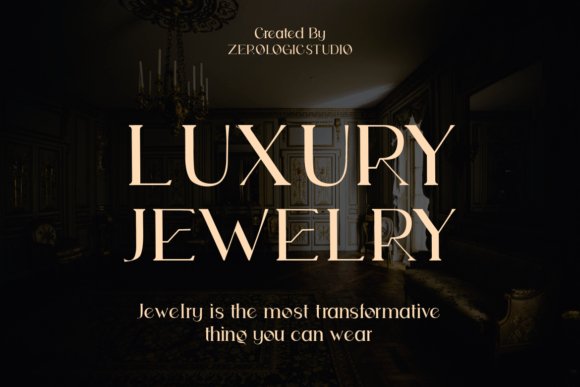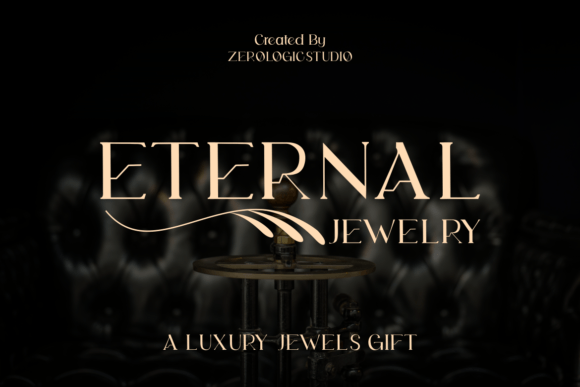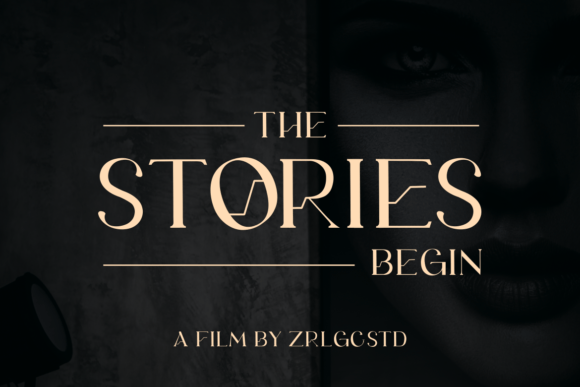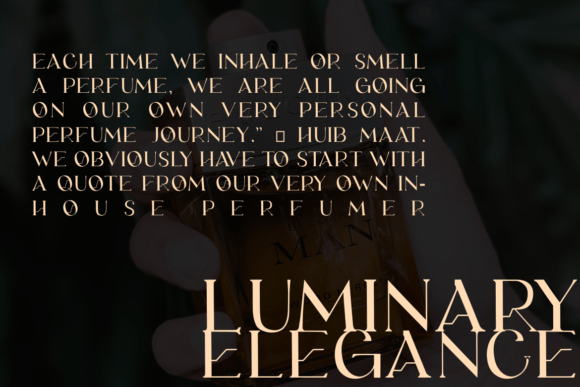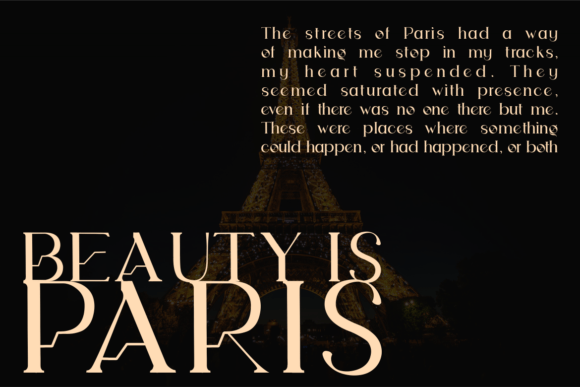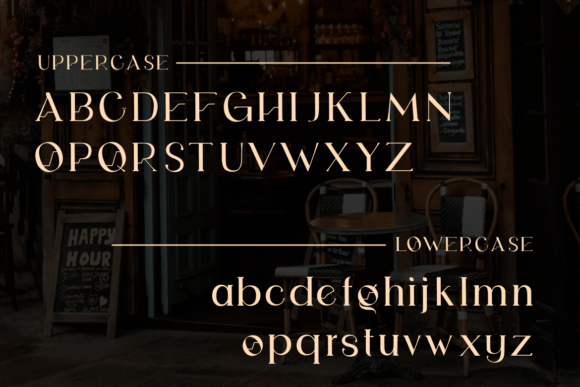
Introduction to Garwoone Font
As designers, we’ve all been there – staring at a blank canvas, trying to bring our creative vision to life. The perfect font can make all the difference, elevating our designs from mere good to truly exceptional. That’s why we’re excited to introduce you to the Garwoone Font, a modern and luxury serif font designed with originality and style.
With its strong and sharp lines, the Garwoone Font is perfect for titles, typography, posters, magazines, and websites. Its versatility makes it an invaluable resource for designers looking to add a touch of sophistication to their creative projects. Whether you’re working on a high-quality brochure or a digital design, the Garwoone Font is sure to impress.
Key Features of Garwoone Font
- Features a unique, modern design with a clean and elegant aesthetic
Honest Review: Garwoone Font
As a designer, I’m always on the lookout for high-quality design resources that can elevate my creative projects. Recently, I stumbled upon the Garwoone Font, and I must say it’s been a game-changer.
- Unique and stylish design: The Garwoone Font boasts a unique blend of modern and vintage elements that make it perfect for a wide range of creative projects.
- High-quality font: The font is crystal-clear and well-designed, making it easy to read and use in various contexts.
- Limited language support: Unfortunately, the Garwoone Font only supports a limited number of languages, which may be a drawback for designers who work with multiple languages.
Overall, I’m impressed with the Garwoone Font. It’s a great design resource that can add a touch of elegance to any creative project. While it has some limitations, it’s definitely worth checking out for designers looking for a high-quality font.
Tips for Getting the Most Out of Garwoone Font
Use the Garwoone Font in conjunction with a transparent background to create a clean and modern design. Experiment with different font sizes and colors to add visual interest to your design. You can also use the font in combination with other design resources, such as images and graphics, to create a unique and eye-catching design.
Common Use Cases for Garwoone Font
The Garwoone Font is a versatile design resource that can be used in a variety of creative projects, including logos, business cards, brochures, and social media graphics. It’s also a great choice for designers who want to create high-quality, professional-looking designs with a free download font.